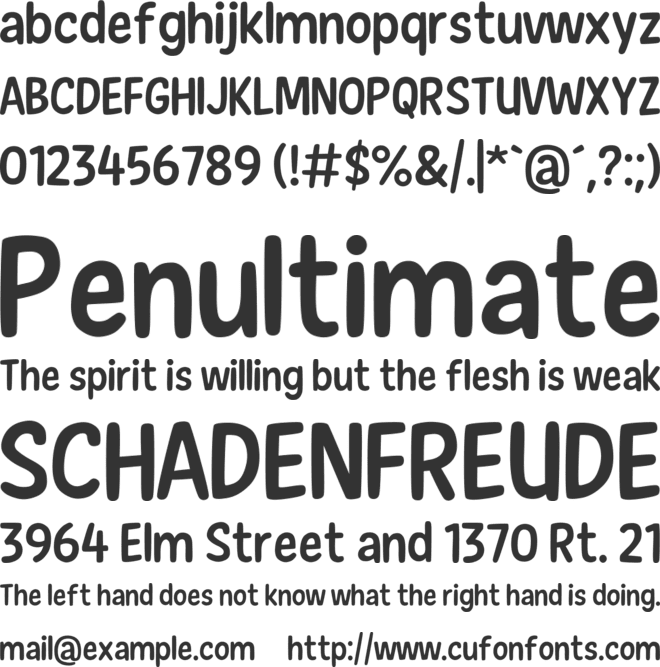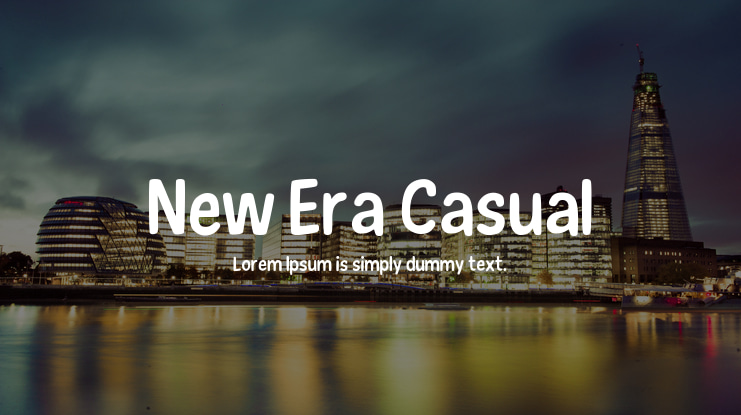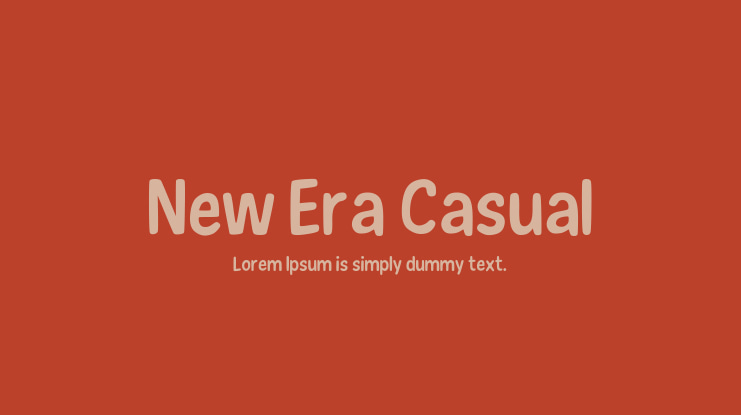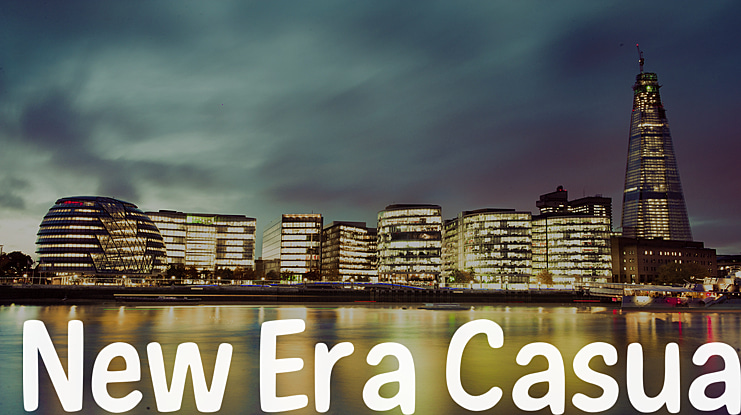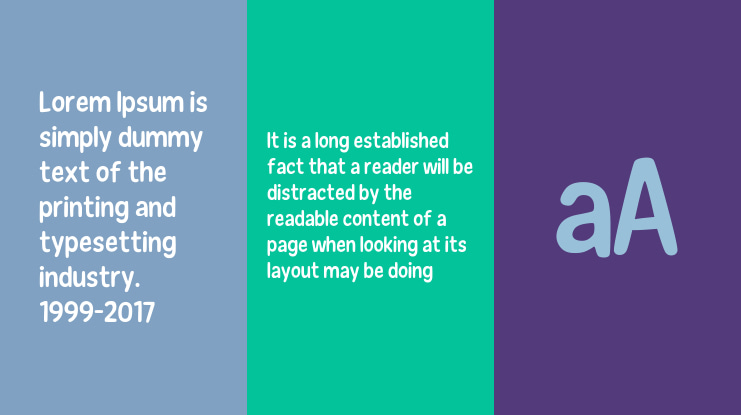
New Era Casual Font Family
This font has designed by Jayvee D. Enaguas and It has inspired in 1951 fonts from Dom Casual.
Updated v1.2 - Fixed in rounds, metrics and correctly italic.